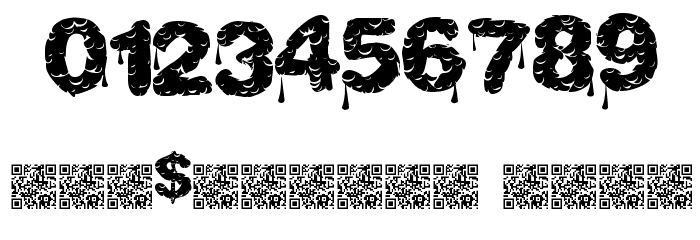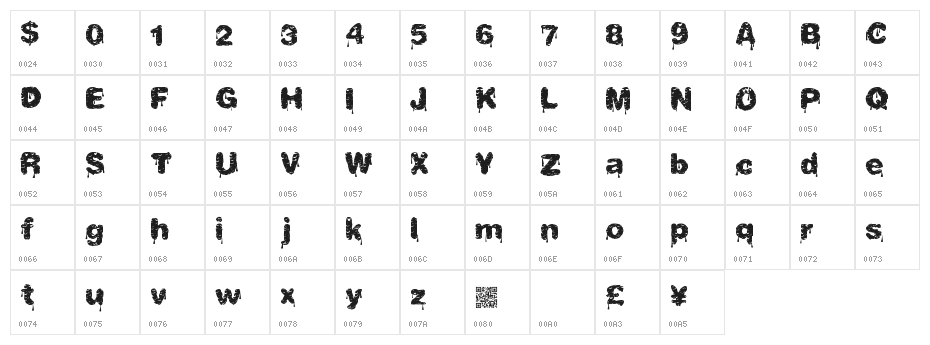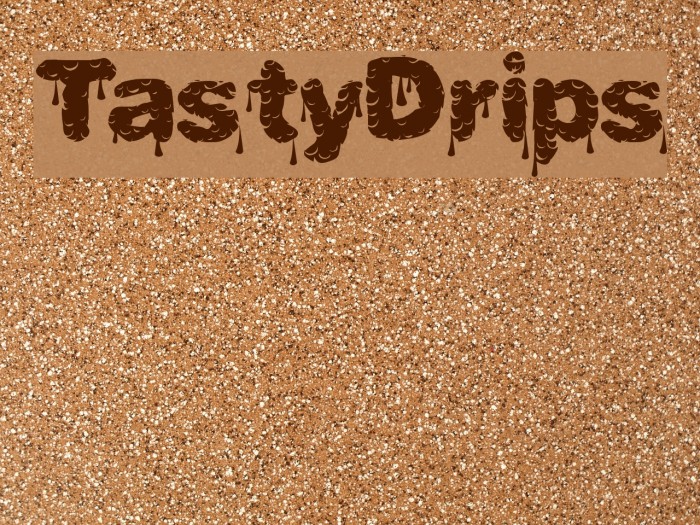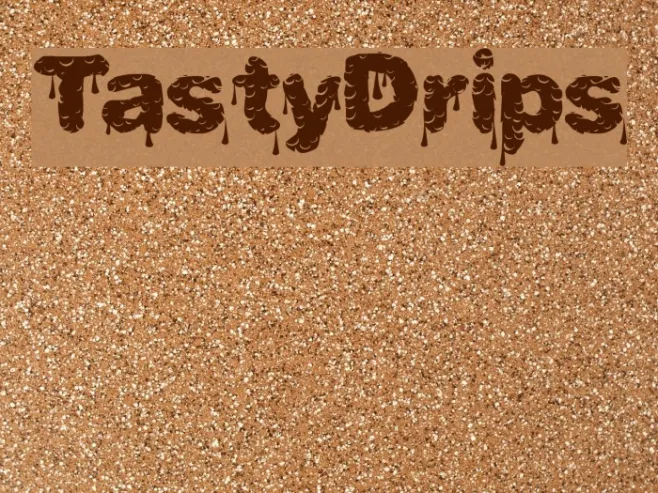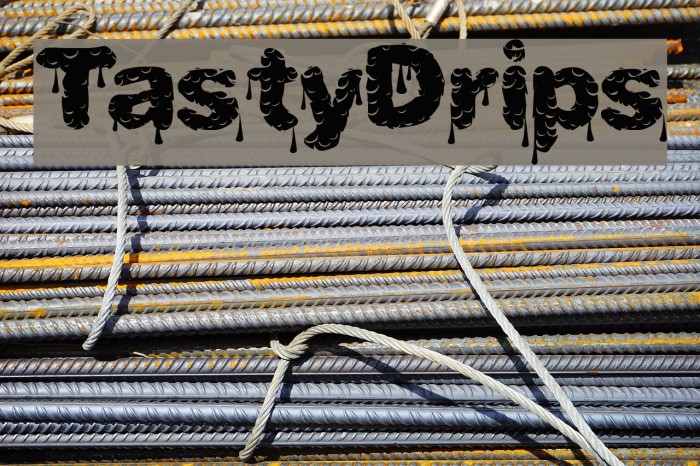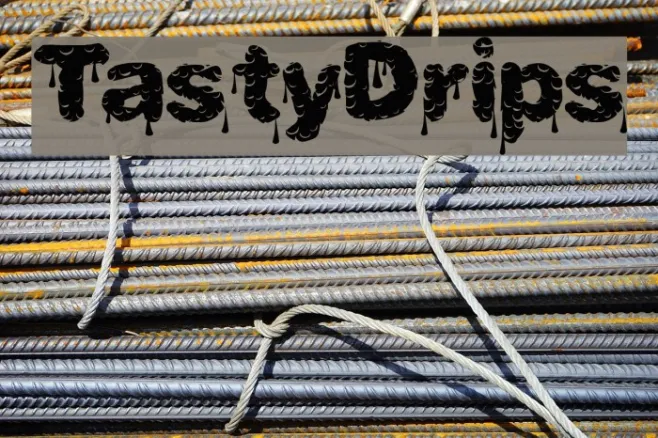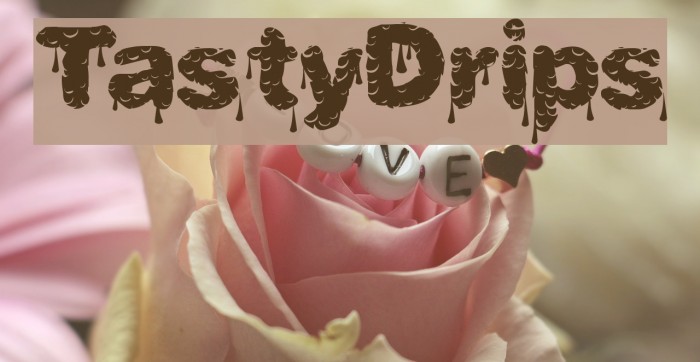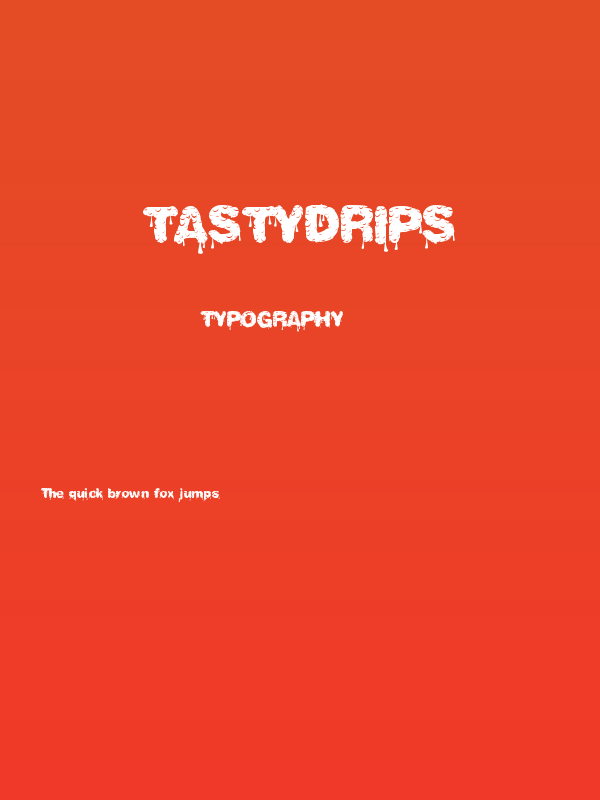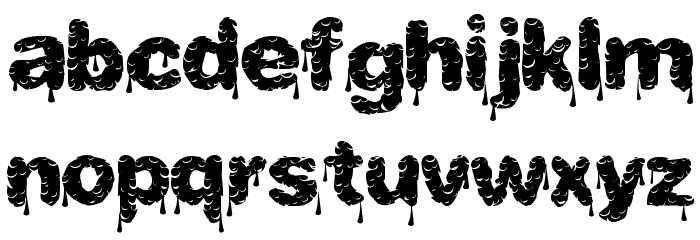
TastyDrips Font
TastyDrips Description
This font features a bold and playful design with a dripping effect that gives it a unique and eye-catching appearance. The letters appear as if they are melting or dripping with liquid, adding a dynamic and fluid feel to the text. The boldness of the characters ensures high visibility, making it suitable for attention-grabbing headlines or creative projects. The font maintains consistent thickness throughout each character, contributing to its cohesive and striking look. The dripping elements vary slightly in length and placement, adding an organic and spontaneous touch to the overall design.
| Proposed Projects | Ideal for Halloween-themed designs, horror movie posters, creative branding, or any project requiring a bold and unique visual impact. |